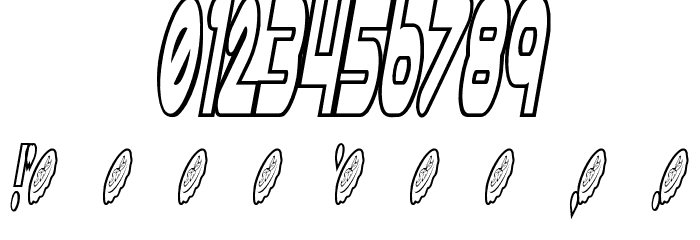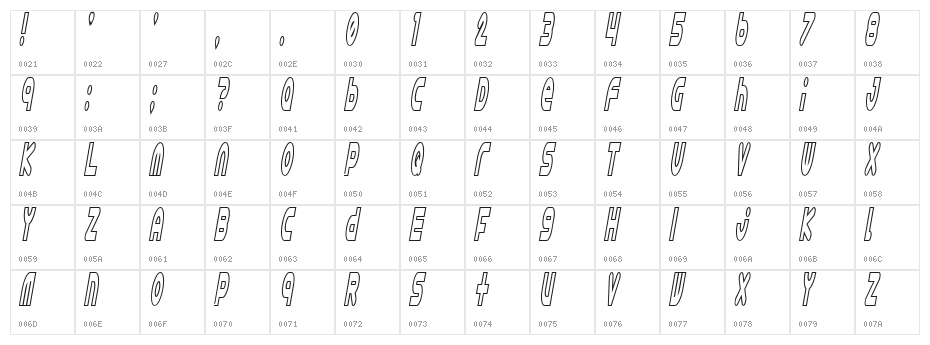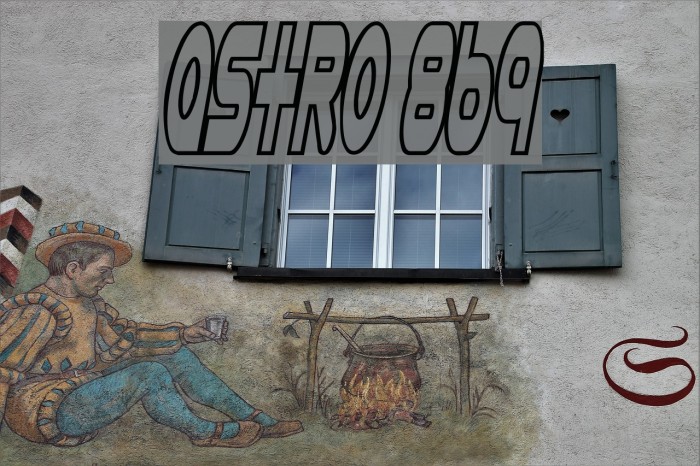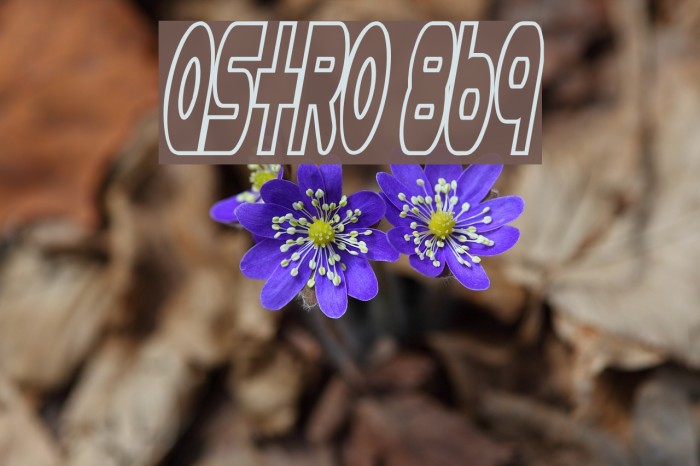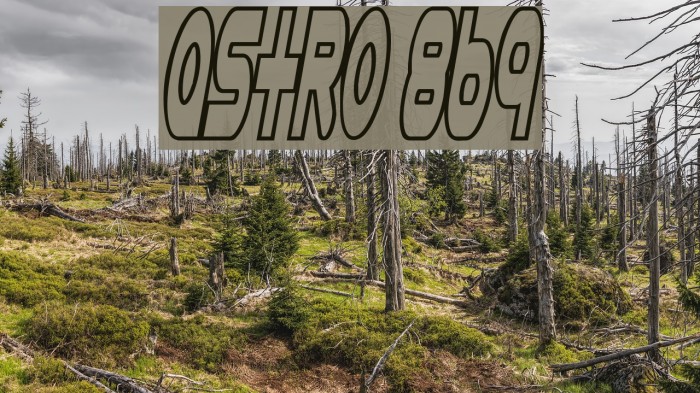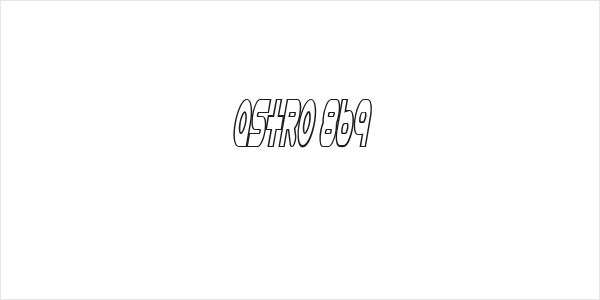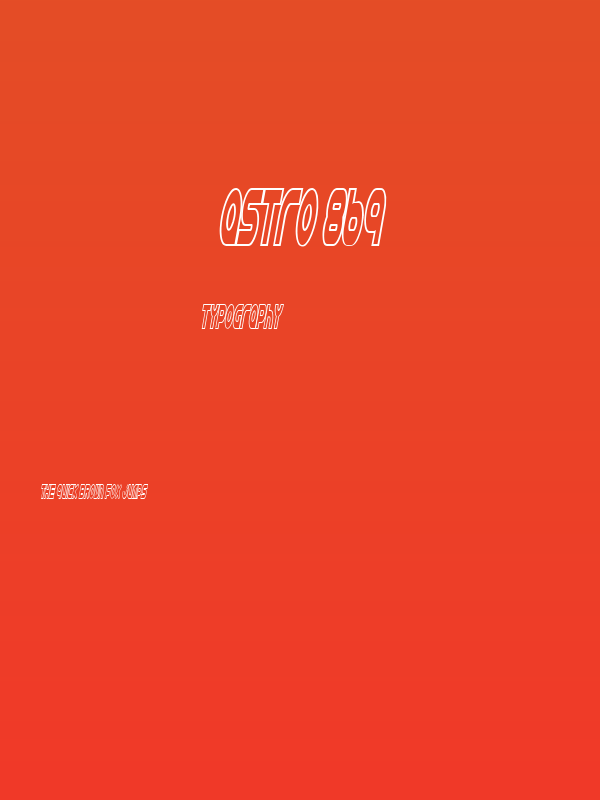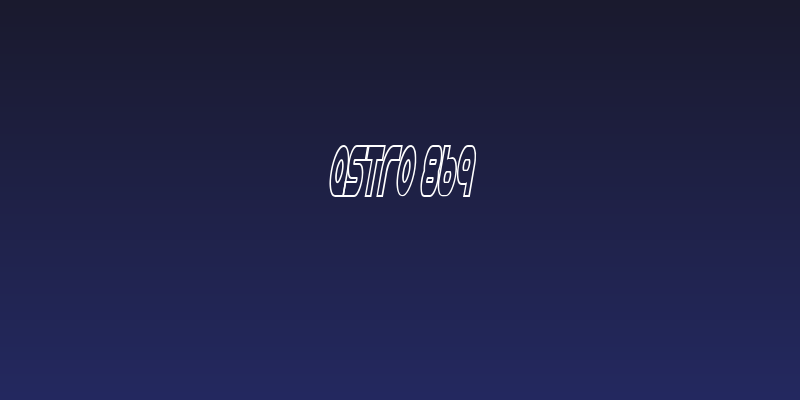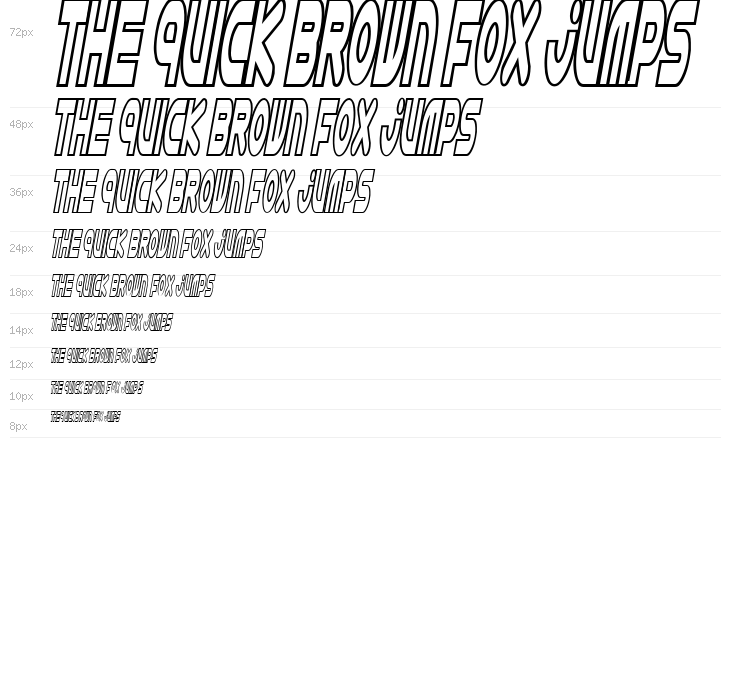
Astro 869 Font
Astro 869 Description
This font features a futuristic and dynamic style with a strong emphasis on bold, geometric shapes. The letters are slanted, giving a sense of motion and speed, reminiscent of sci-fi aesthetics. The strokes are thick and consistent, creating a uniform appearance across all characters. The uppercase and lowercase letters maintain a cohesive design, with rounded edges and a slight italic slant. Numbers and special characters follow the same design principles, ensuring a seamless integration. This font is ideal for projects that require a modern and energetic look.
| Proposed Projects | Ideal for sci-fi themed posters, video game titles, tech branding, and futuristic event flyers. |